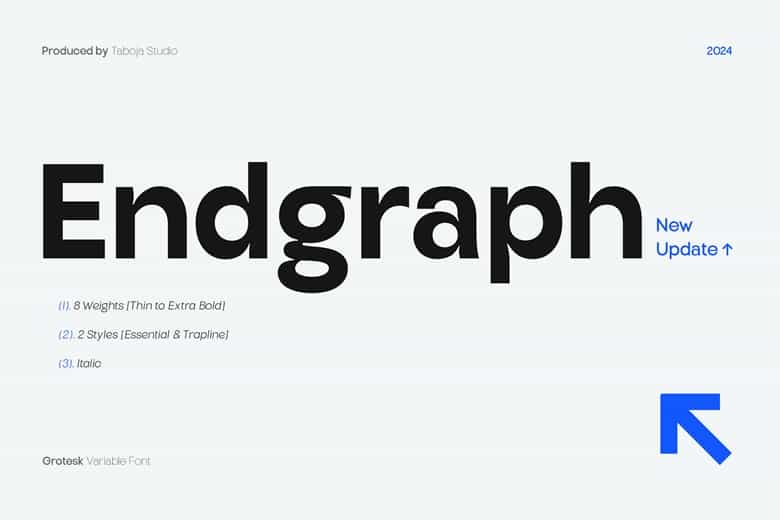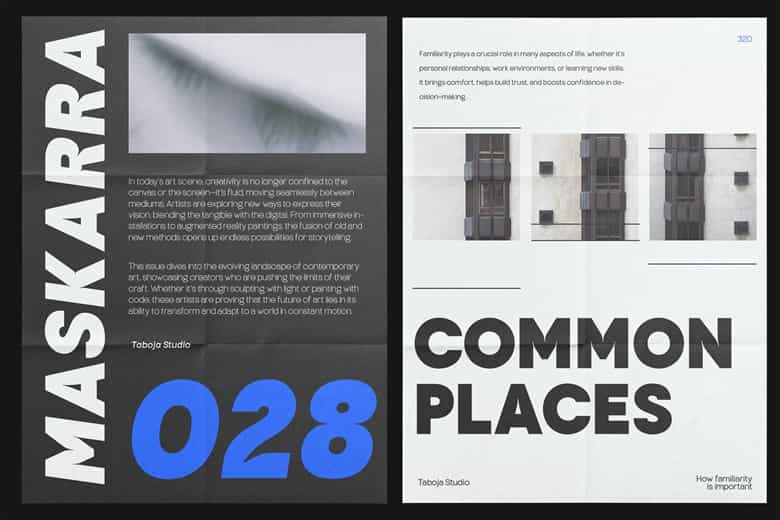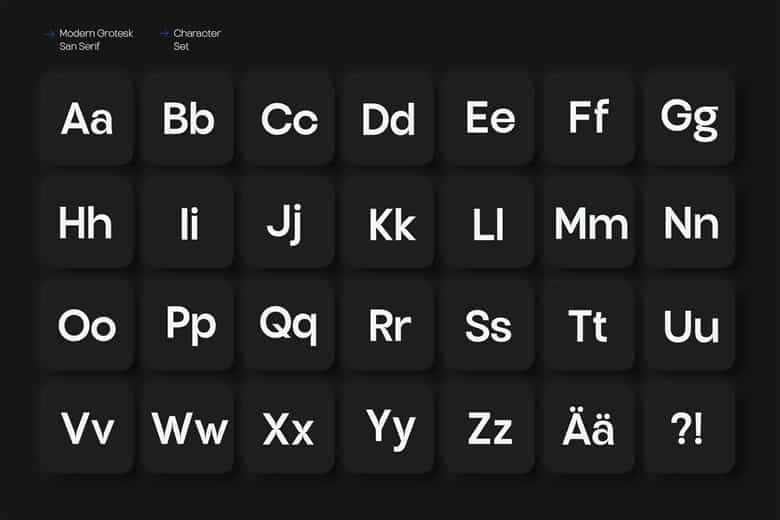
TBJ Endgraph Essential & Trapline is a new and clean sans serif font family that combines geometrical approach with humanistic feel. It comes with 8 different weights from thin to extra bold; and 2 styles; Essential & Trapline. TBJ Endgraph is flexible and can be easily integrated into any work for logo design, websites or printed materials Due to its minimalism and symmetry, it can be used safely by designers who are looking for a typeface which will be easy on the eye and versatile.